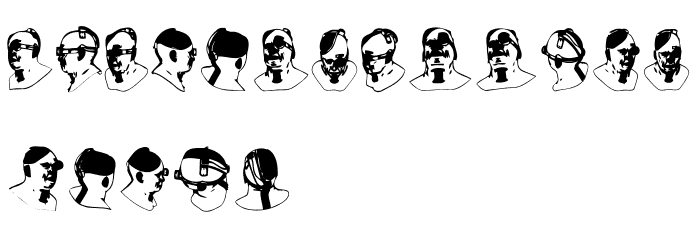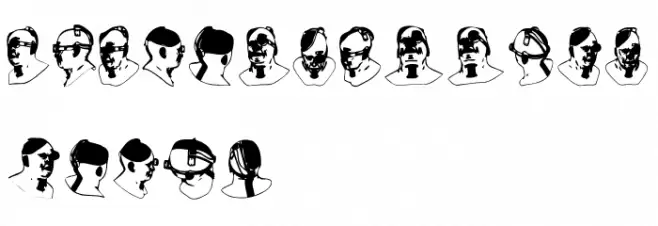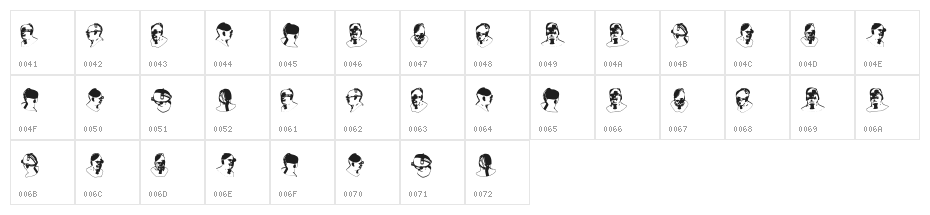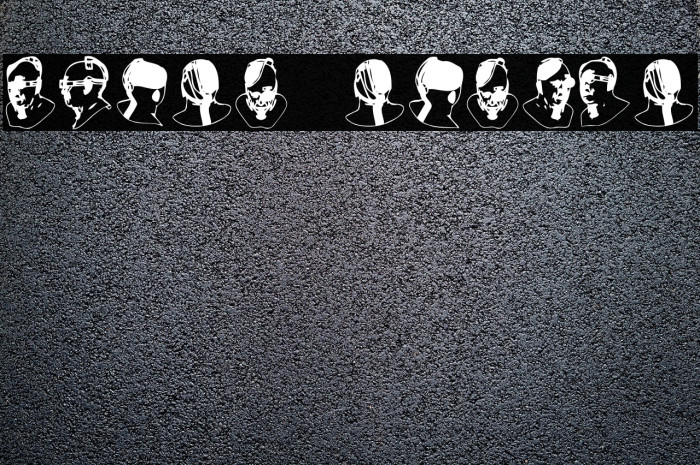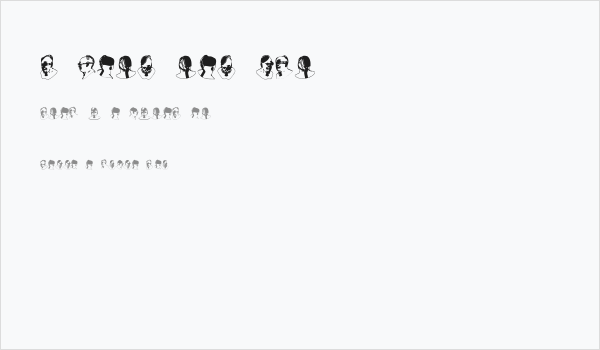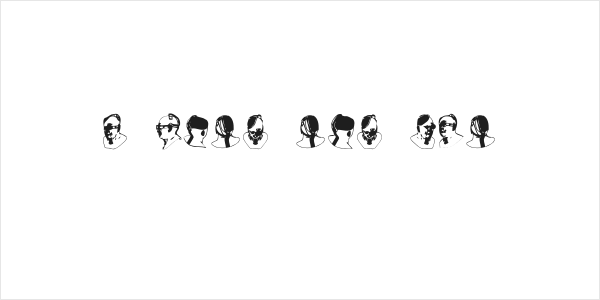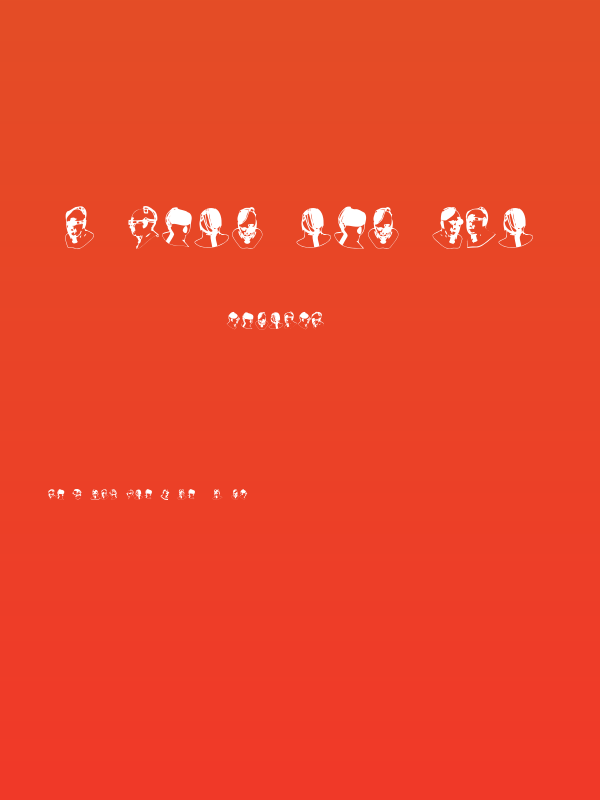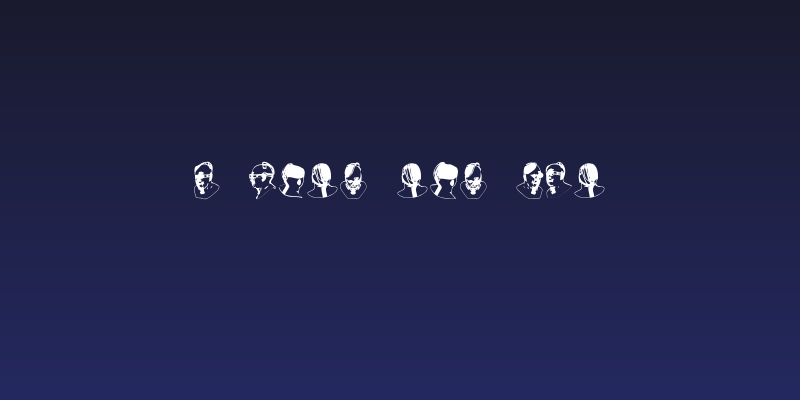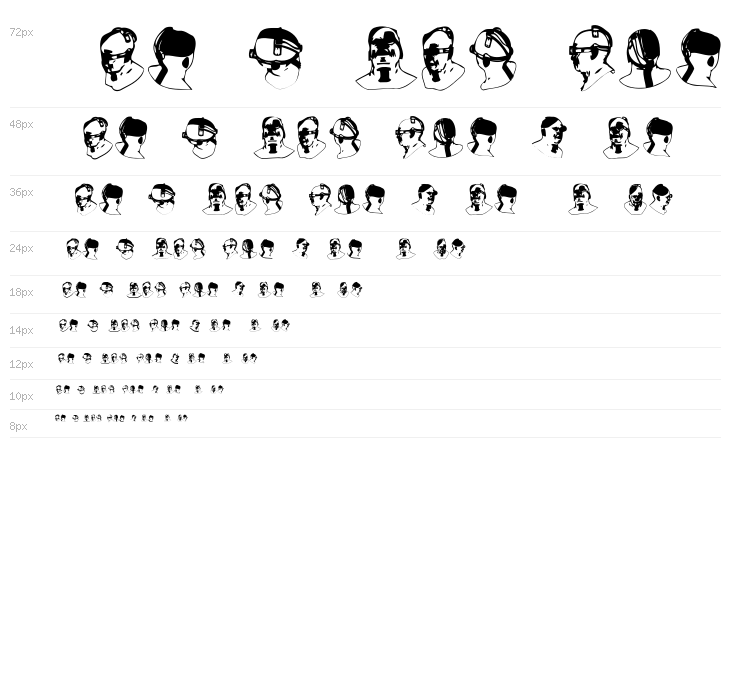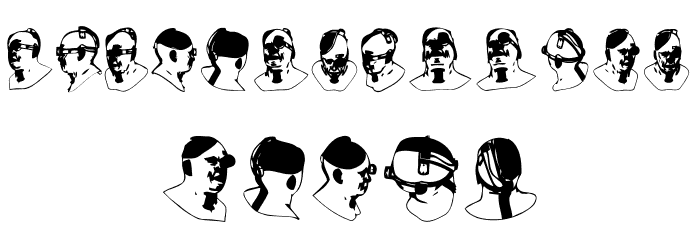
Cyborg Regular Font
Cyborg Regular Description
A highly decorative and illustrative font where each character is represented by a stylized, black-and-white portrait of a person with cybernetic or futuristic eyewear, emphasizing bold contrasts and unique silhouettes.
| Overall Style | Futuristic, Decorative, Experimental |
| Use Case | Logos, Headlines, Posters, Artistic projects |
| Proposed Projects | Posters, album covers, science fiction event branding, experimental graphic design, themed party invitations. |